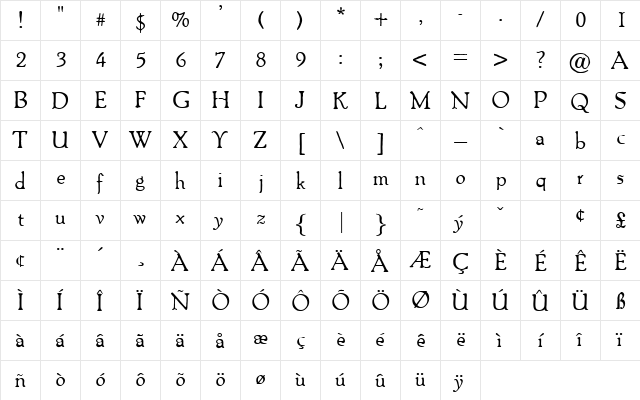
Perivale Regular
Design Context for Perivale Typeface
Perivale offers clean, dependable letterforms without strong stylistic allegiance, making it a practical choice for designers who need flexibility.